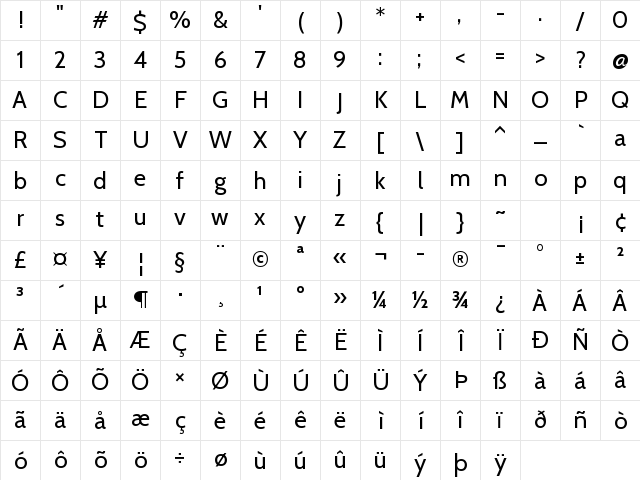
Complete Cabin VF Beta Regular glyph index. Displaying only characters natively supported by Cabin VF Beta Regular font.
Cabin VF Beta is a composed and adaptable typeface that performs quietly and consistently across a wide range of design contexts.